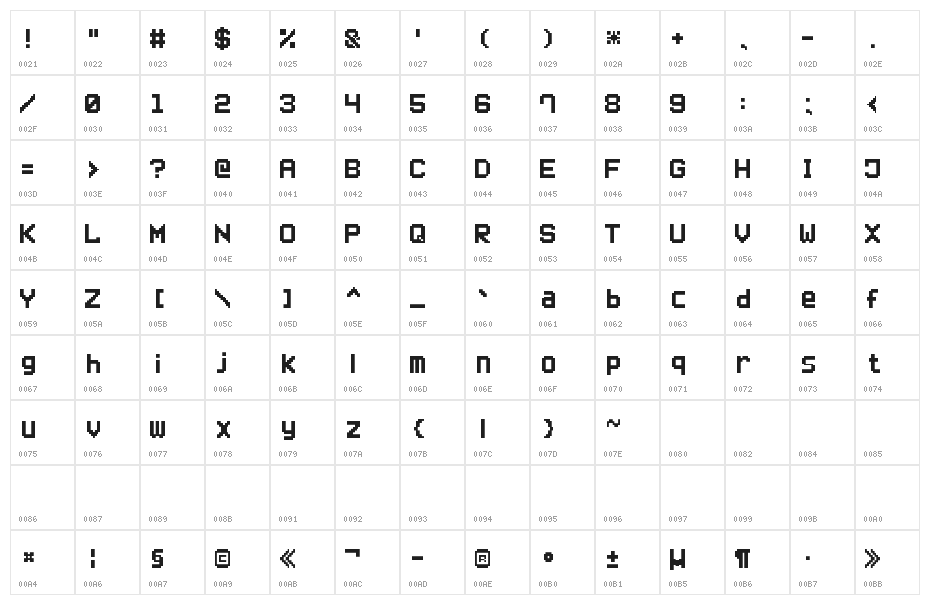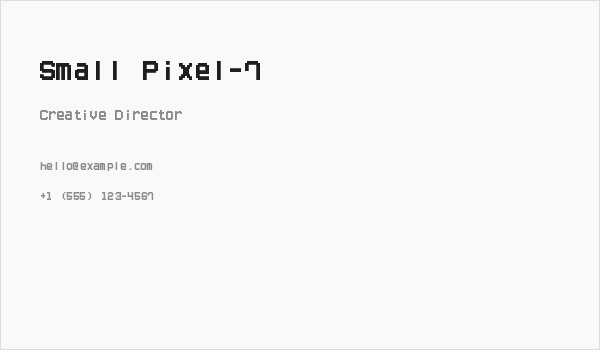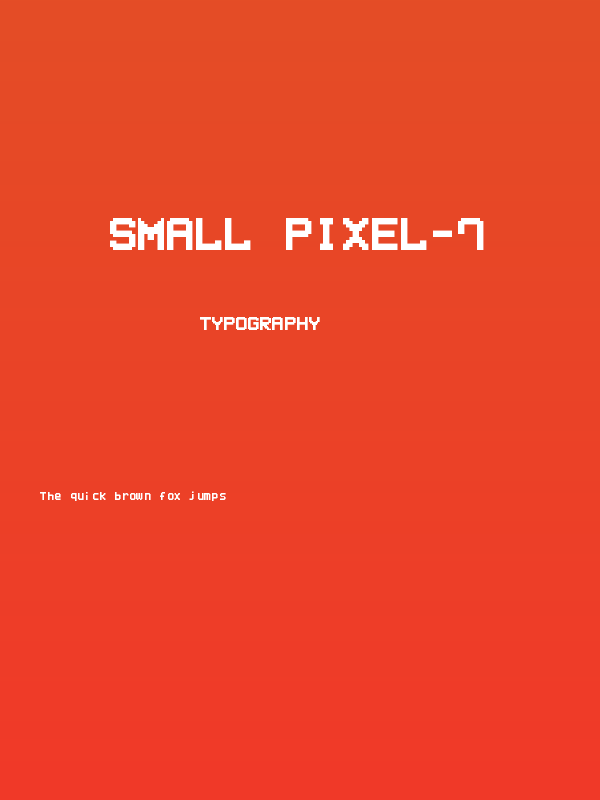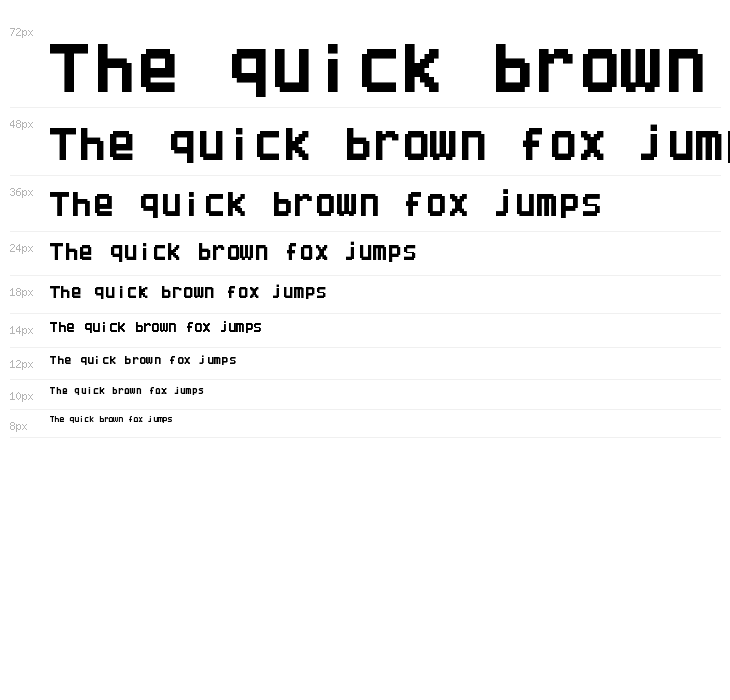
Small Pixel-7 Font
Small Pixel-7 Description
This font is a pixelated, monospaced typeface that evokes a retro, digital aesthetic reminiscent of early computer graphics and video games. Each character is composed of a grid of pixels, creating a blocky and geometric appearance. The uniformity in character width and height contributes to its monospaced nature, making it ideal for coding and digital displays. The uppercase and lowercase letters maintain a consistent style, with clear distinctions between similar characters. Numbers and special characters are equally well-defined, ensuring readability across various uses.
| Use Case | Digital displays, Coding, Retro designs |
| Proposed Projects | Ideal for retro video game designs, digital art projects, coding environments, and any project requiring a nostalgic digital feel. |